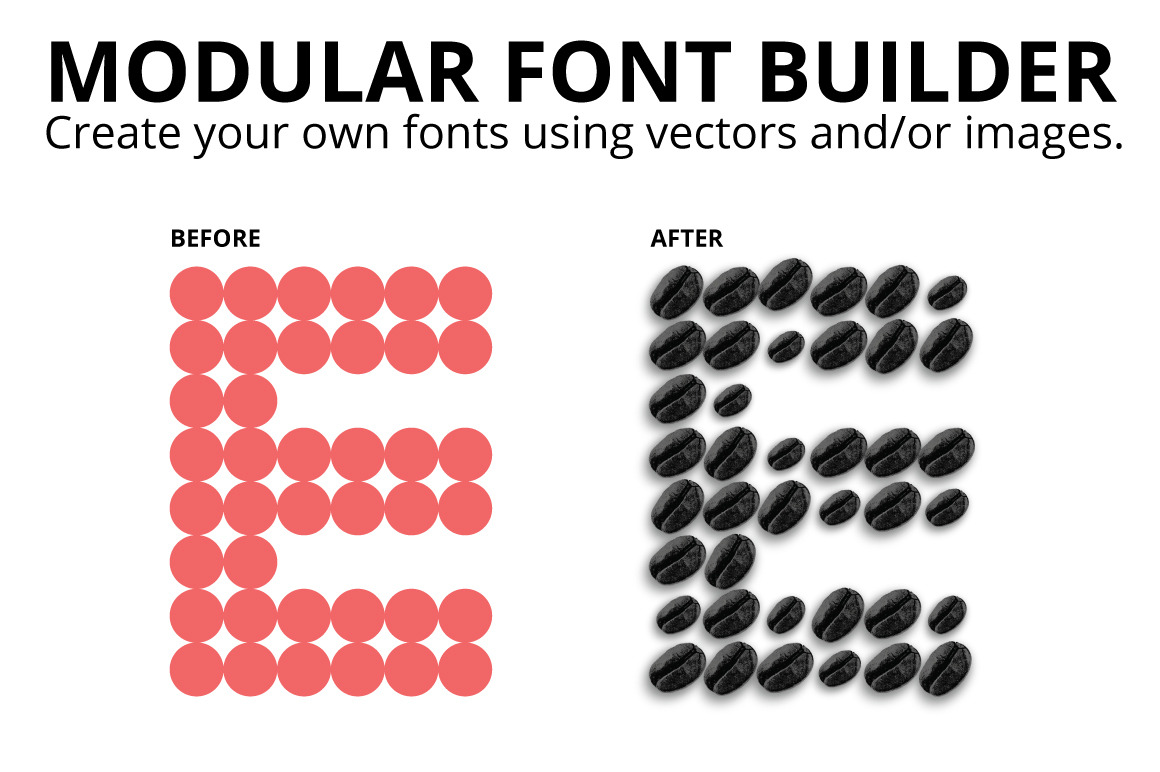
Modular Font Builder
Modular Font Builder is a grid of symbols that allows you to create fonts from vectors and images. Create fun and original titles for your print and digital work. So many possibilities!
Really easy and quick to edit. Just with a couple of clicks edit one symbol and all characters will be automatically updated.
- Grid
- 24 Letters from A to Z
- 10 Numbers from 1 to 0
- 2 special characters: ? !